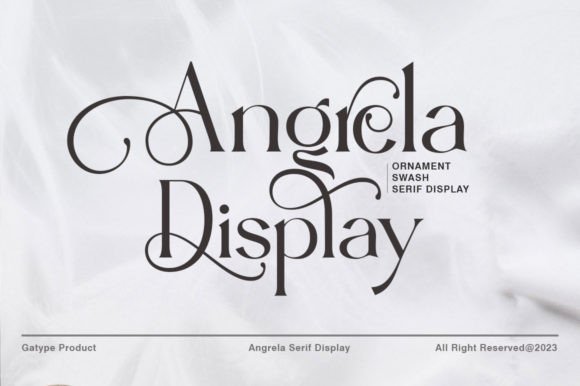
Introducing Angrela Font: The Epitome of Luxury and Elegance
In the realm of typography, few fonts manage to convey the essence of luxury, elegance, and modernity as effectively as Angrela Display. This ornament serif font has been meticulously crafted to exude a charming, sophisticated aura, making it an ideal choice for a wide array of applications, from high-end branding projects to stylish magazine layouts, social media content, logos, and website headers. With its unique blend of classic and contemporary design elements, Angrela Display is poised to elevate any project to new heights of visual excellence.
Design Characteristics of Angrela Display
Angrela Display is distinguished by its intricate serif details, which lend an air of refinement and opulence to any text. The font’s design is characterized by:
- Ornament Serif: The serifs are not merely decorative; they are integral to the font’s luxurious feel, adding depth and complexity to the text.
- Charming and Elegant: Every letterform has been carefully designed to convey a sense of charm and elegance, perfect for projects that demand a high level of sophistication.
- Modern and Unique: Despite its classic undertones, Angrela Display boasts a modern aesthetic that sets it apart from more traditional serif fonts. Its uniqueness ensures that your projects stand out in a crowded visual landscape.
- Classy Appearance: The overall appearance of Angrela Display is undeniably classy, making it suitable for high-end branding, luxury goods, and premium services.
Versatility of Use
One of the key strengths of Angrela Display is its versatility. This font is not limited to a specific type of project; rather, it can be effectively utilized across a broad spectrum of applications, including:
- Fancy Themed Projects: Whether you’re working on an invitation, a boutique hotel’s branding, or a luxury product launch, Angrela Display adds the perfect touch of elegance.
- Branding Projects: Establish a strong brand identity with a font that communicates luxury, quality, and sophistication.
- Magazine and Social Media: Elevate your editorial content or social media posts with a font that captures attention and conveys a sense of style.
- Logos and Website Headers: Create a lasting impression with a logo or website header that embodies modern luxury and class.
Features of Angrela Display
Angrela Display comes with a comprehensive set of features designed to enhance its usability and flexibility:
- Stylistic Alternatives: Offers a variety of stylistic alternatives to help you customize your text and achieve the desired look.
- Swash: Adds a decorative touch to your text, perfect for emphasizing certain words or phrases.
- Uppercase and Lowercase: Includes both uppercase and lowercase letters, providing full flexibility for your text.
- Multilingual Character Support: Cater to a global audience with support for multiple languages.
- Number and Punctuation: A complete set of numbers and punctuation marks ensures that you have everything you need to create professional-looking text.
Why Choose Angrela Display?
In a digital age where visual content reigns supreme, choosing the right font can make all the difference. Here are a few reasons why Angrela Display stands out:
- Unique Aesthetic: Offers a fresh take on serif fonts, combining luxury with modernity.
- High Versatility: Suitable for a wide range of projects, from branding to digital content.
- Attention to Detail: Every aspect of the font has been carefully considered to ensure a premium look.
- Easy to Use: With its comprehensive feature set and compatibility with major design software, Angrela Display is easy to integrate into your projects.
Angrela Display is more than just a font; it’s a statement of luxury, elegance, and modern sophistication. Whether you’re a designer looking to elevate your projects, a brand aiming to establish a premium identity, or simply someone who appreciates the finer details in design, Angrela Display is an exceptional choice. Its unique blend of ornament serif details, charming elegance, and modern aesthetic makes it a versatile tool that can be used across a myriad of applications. With Angrela Display, you’re not just choosing a font; you’re choosing to make a lasting impression.